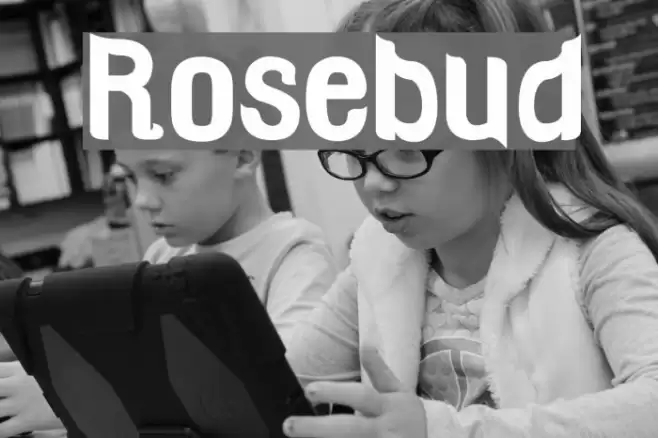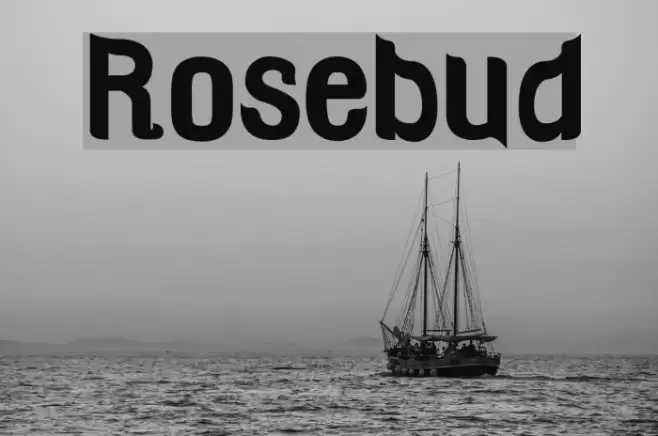
Rosebud Font
Rosebud Description
This font features a bold and playful design with a unique blend of rounded and angular elements. The uppercase letters are robust and slightly condensed, giving a strong presence, while the lowercase letters maintain a consistent style with a touch of whimsy. The numbers are equally bold, ensuring readability and impact. Special characters are designed with the same playful yet sturdy aesthetic, making them suitable for various creative applications. The overall appearance is modern with a hint of retro charm, making it versatile for both digital and print media.
A bold, playful font with rounded and angular elements, offering a modern yet retro charm from Uncategorized fonts.
- Proposed Projects: Ideal for branding, posters, headlines, and any project requiring a bold, eye-catching typeface.